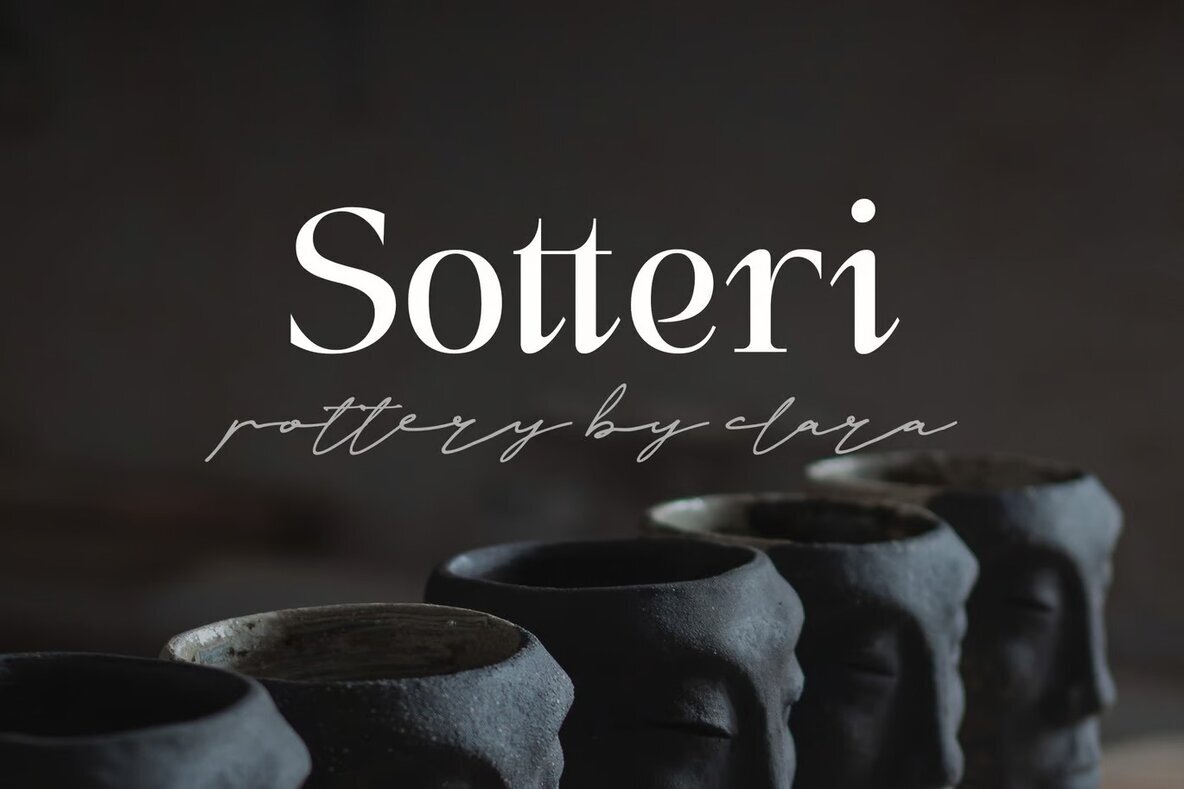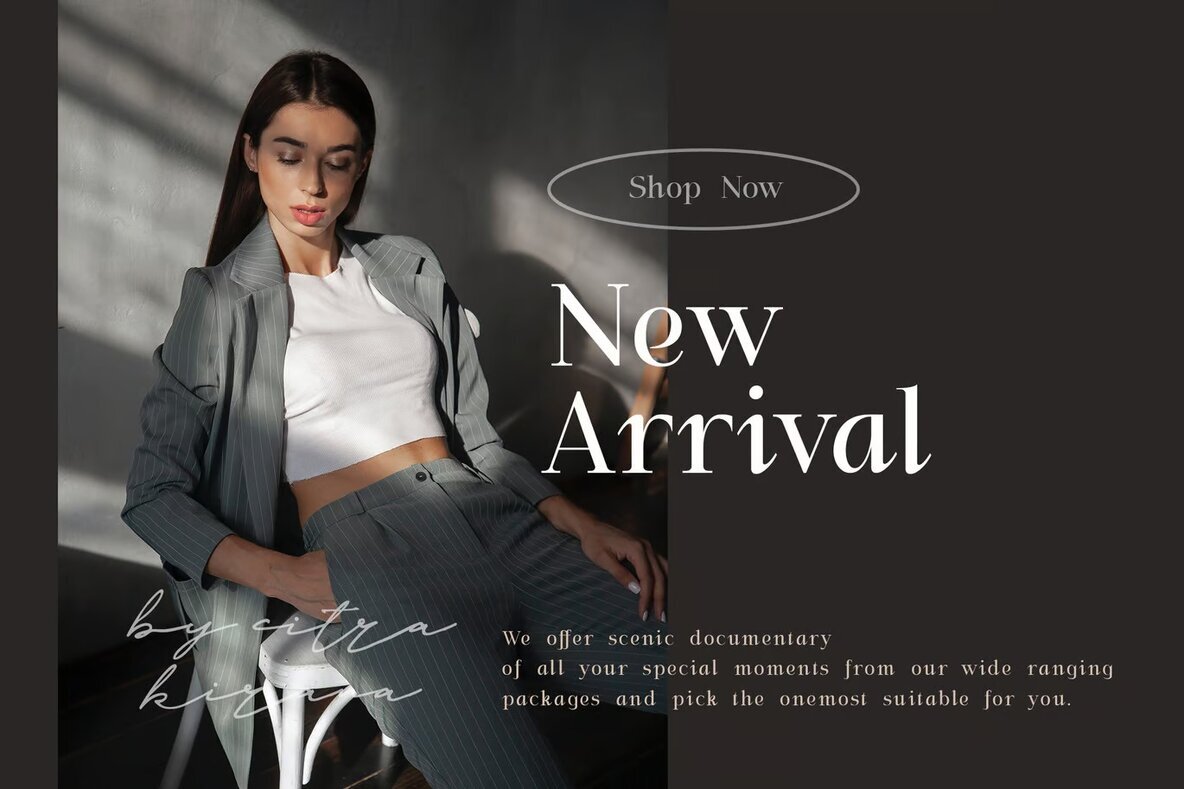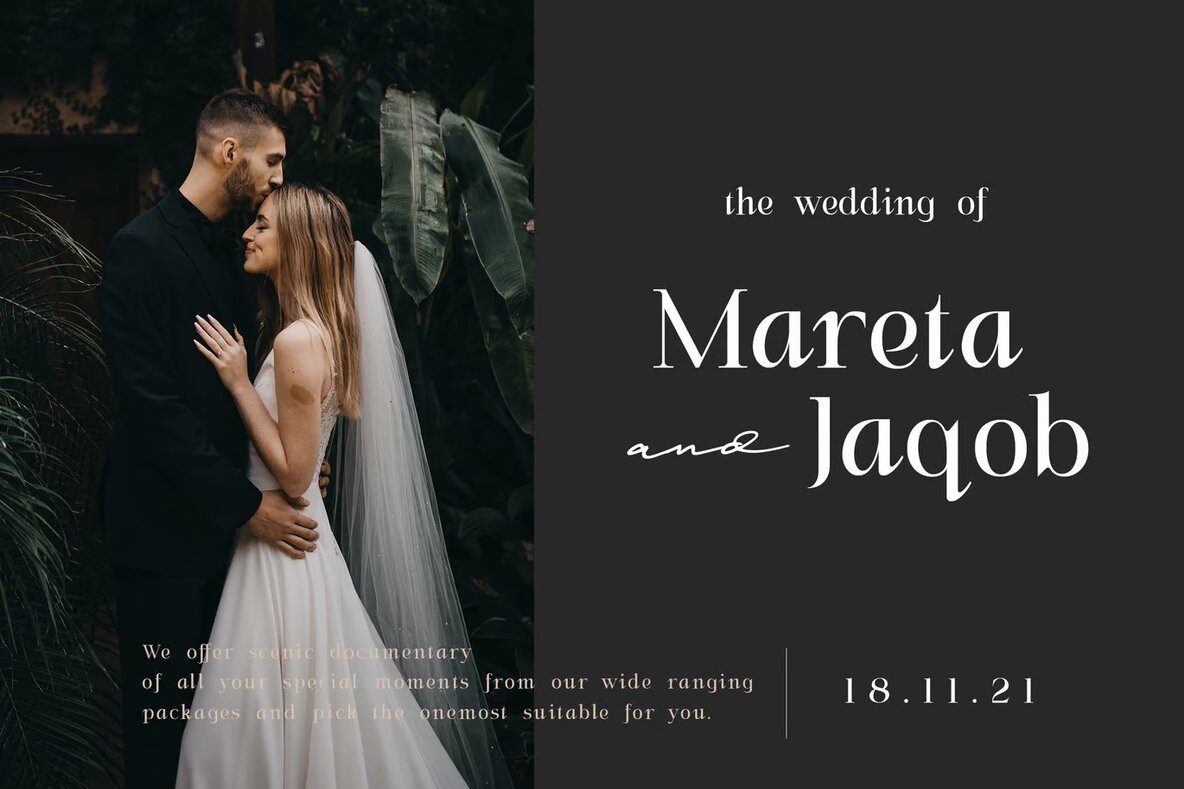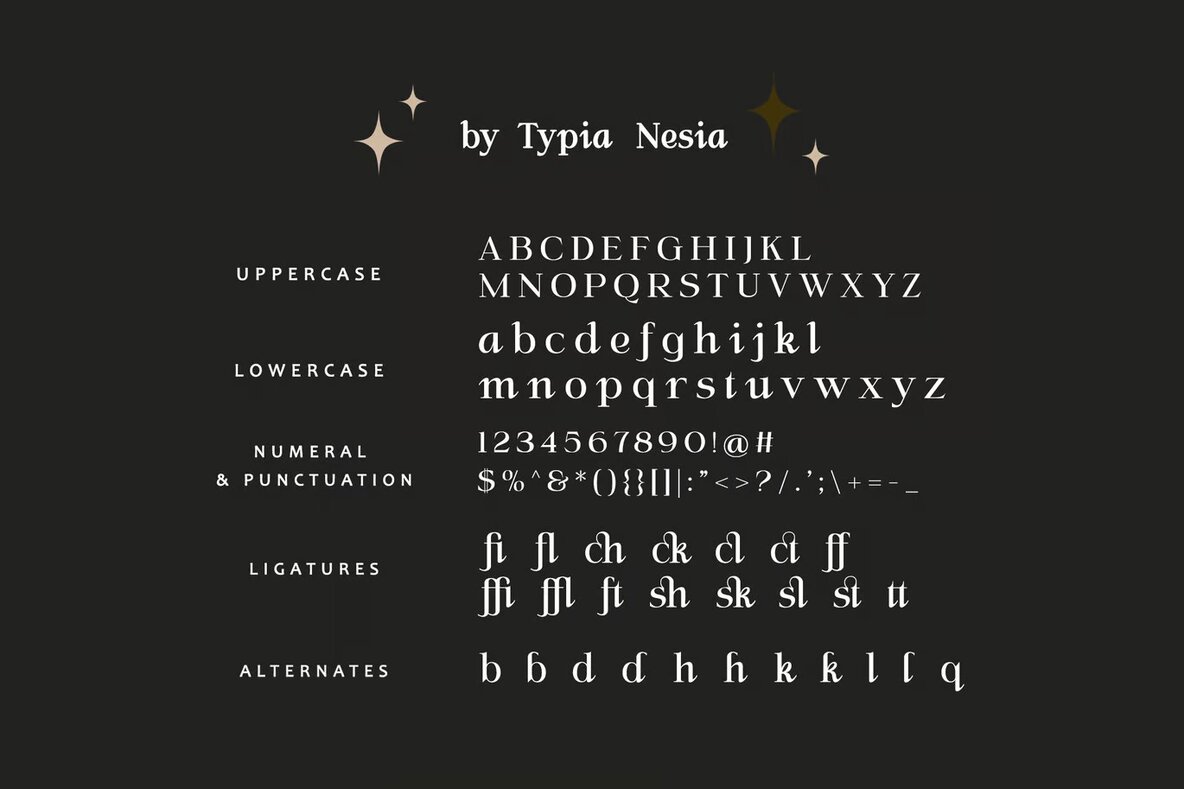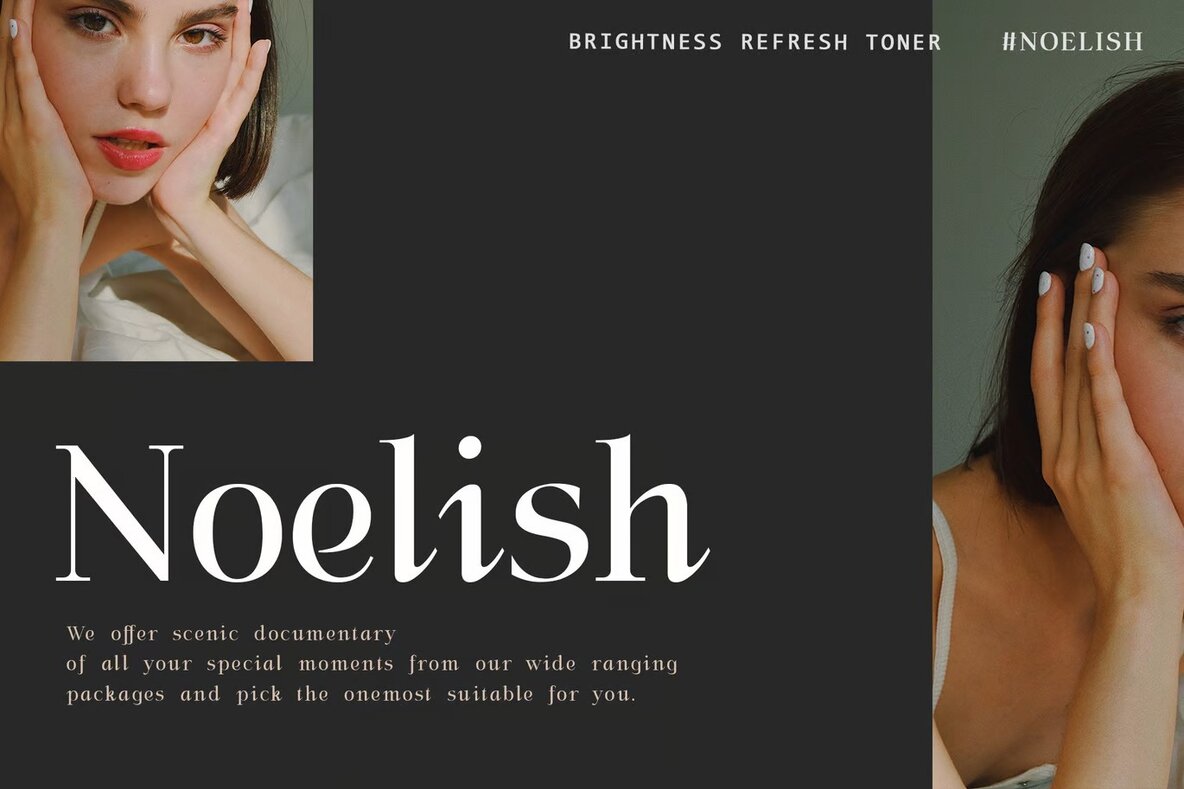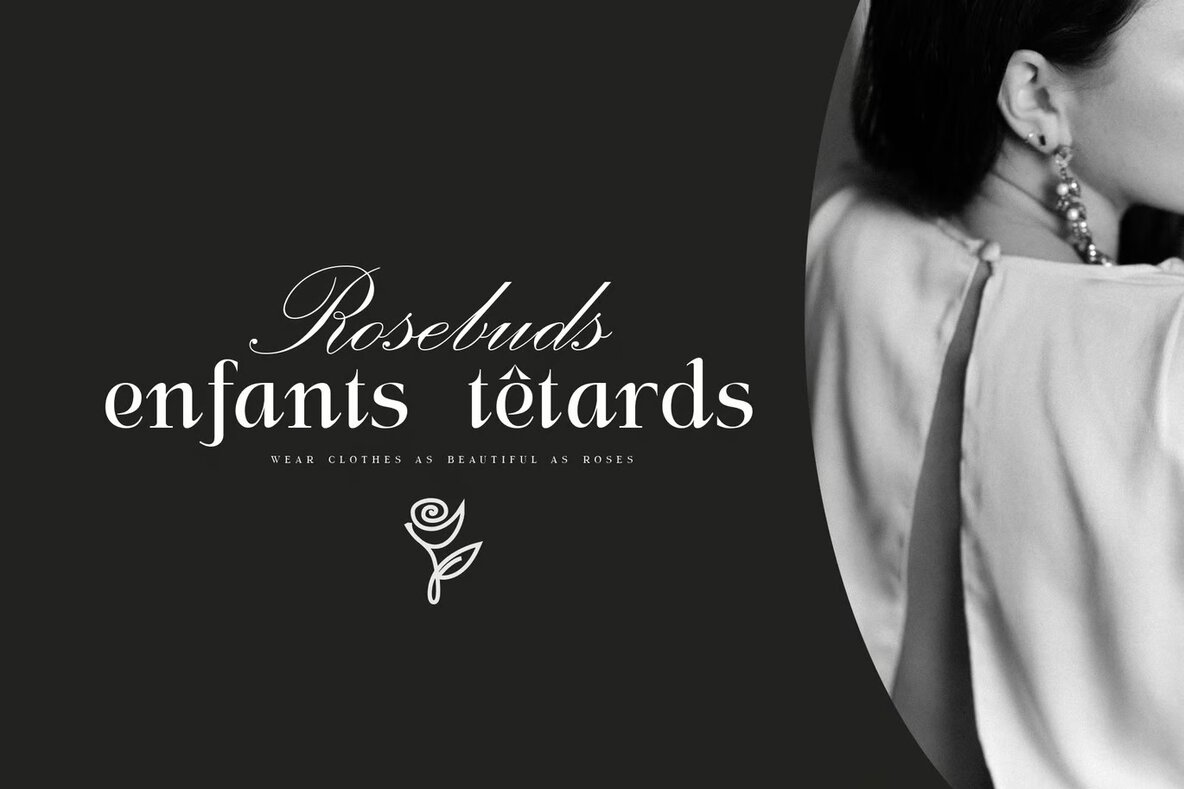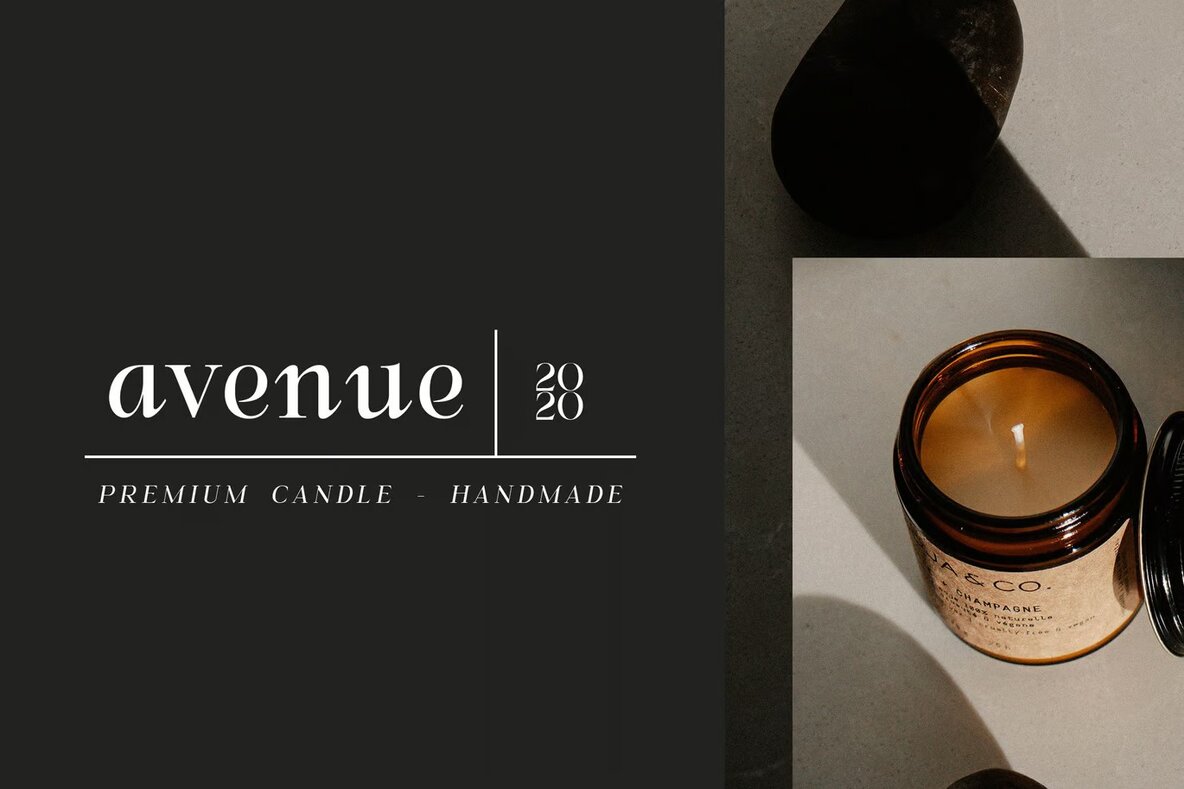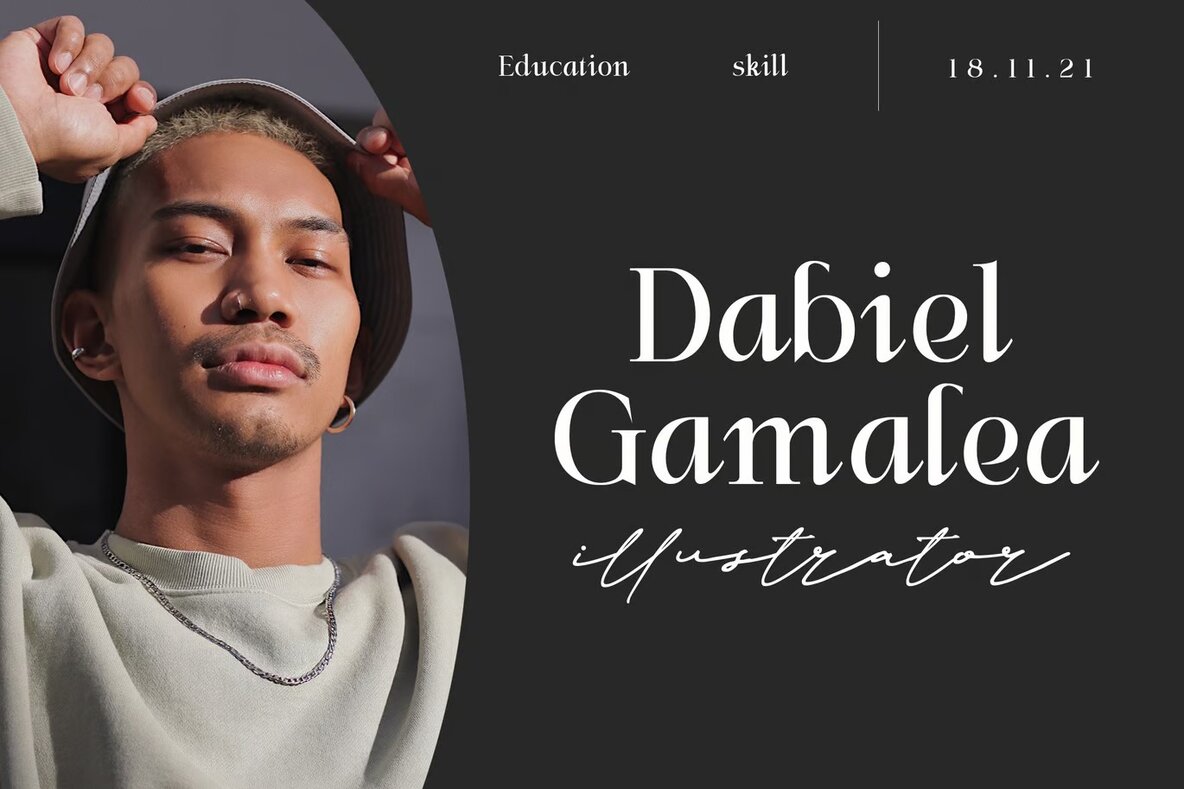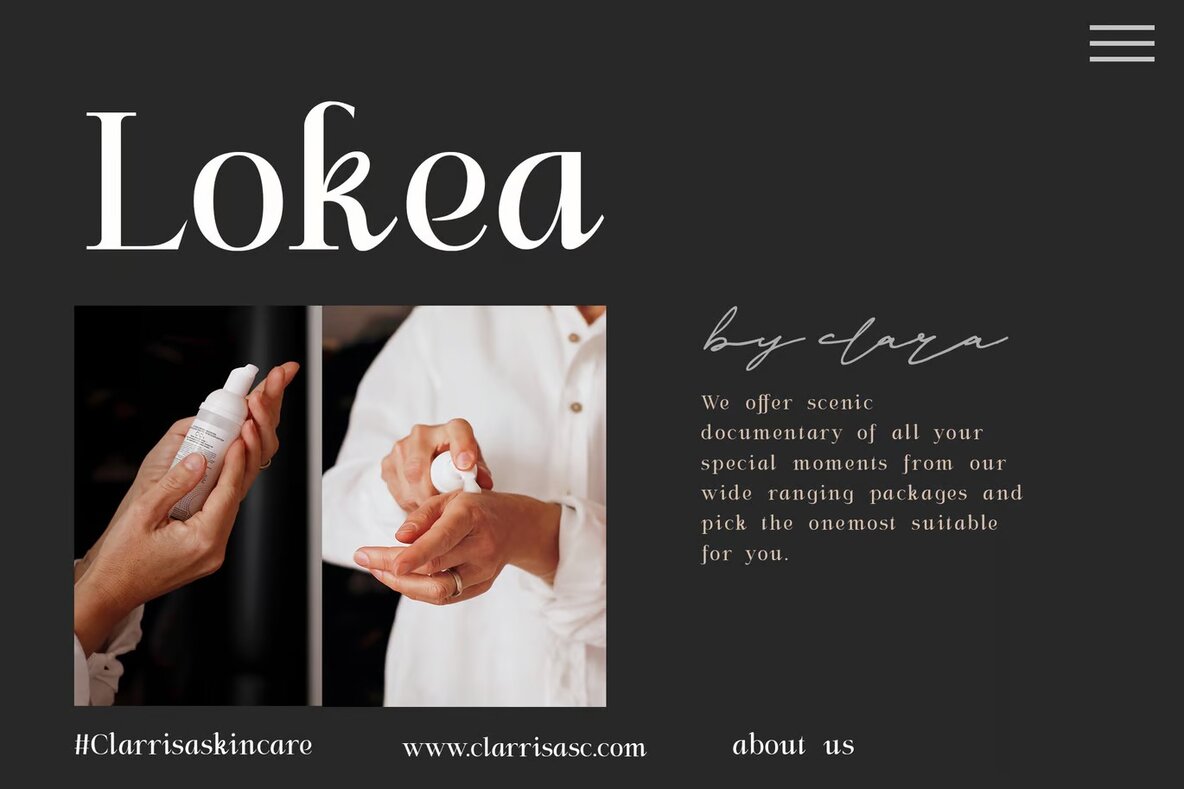
aerotine Font
aerotine Regular
Aerotine is a modern and expressive serif font blending elegance with luxury in its straight italic display. Featuring various ligatures, it offers versatility in typography design, making it an ideal choice for numerous applications. Whether you're working on luxury logos, branding projects, or classy editorial layouts, Aerotine adapts seamlessly. Its refined yet bold aesthetic is perfect for a variety of uses including women's magazines, cosmetic brands, and fashion promotions.
The font’s sophisticated flair suits art gallery branding, historical architectural projects, and boutique identities. It excels in creating striking stationery, engaging blog designs, and impactful modern advertising. Additionally, Aerotine's versatility extends to crafting inviting card designs, inspiring art quotes, and enhancing home decor. Its charm makes it suitable for book and cover titles, special event presentations, and more, allowing designers to explore creative possibilities while maintaining a cohesive and refined look.